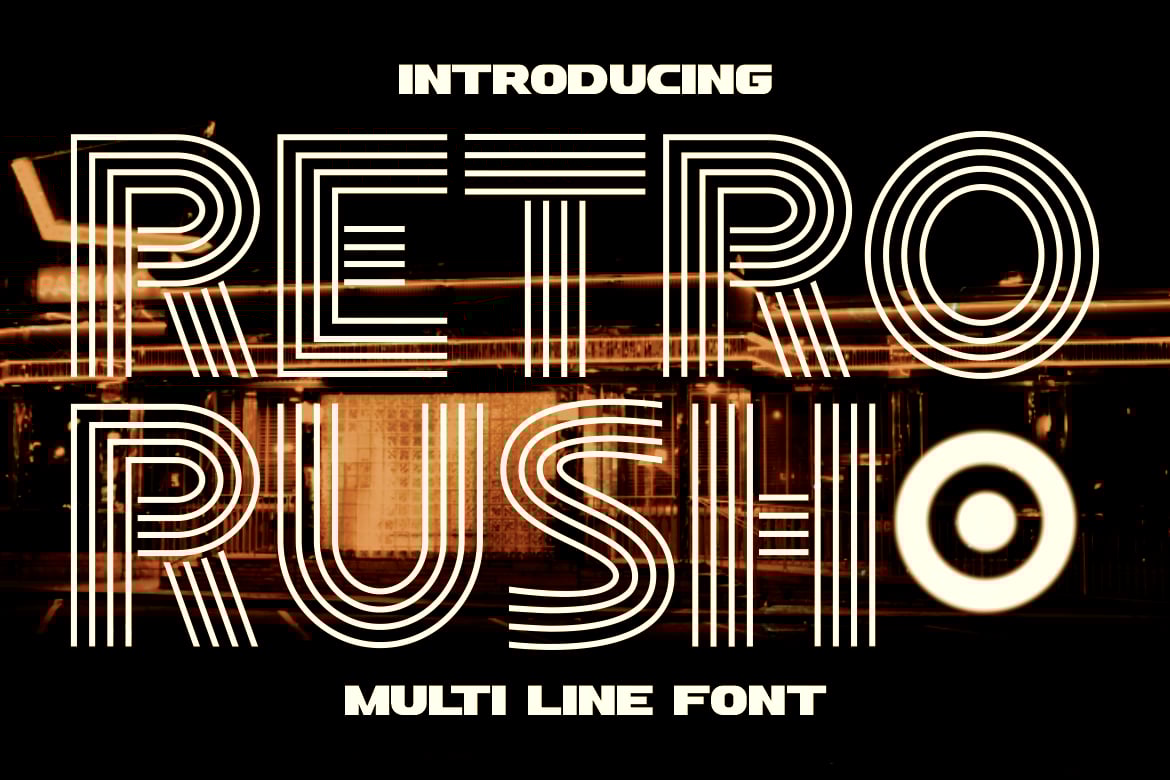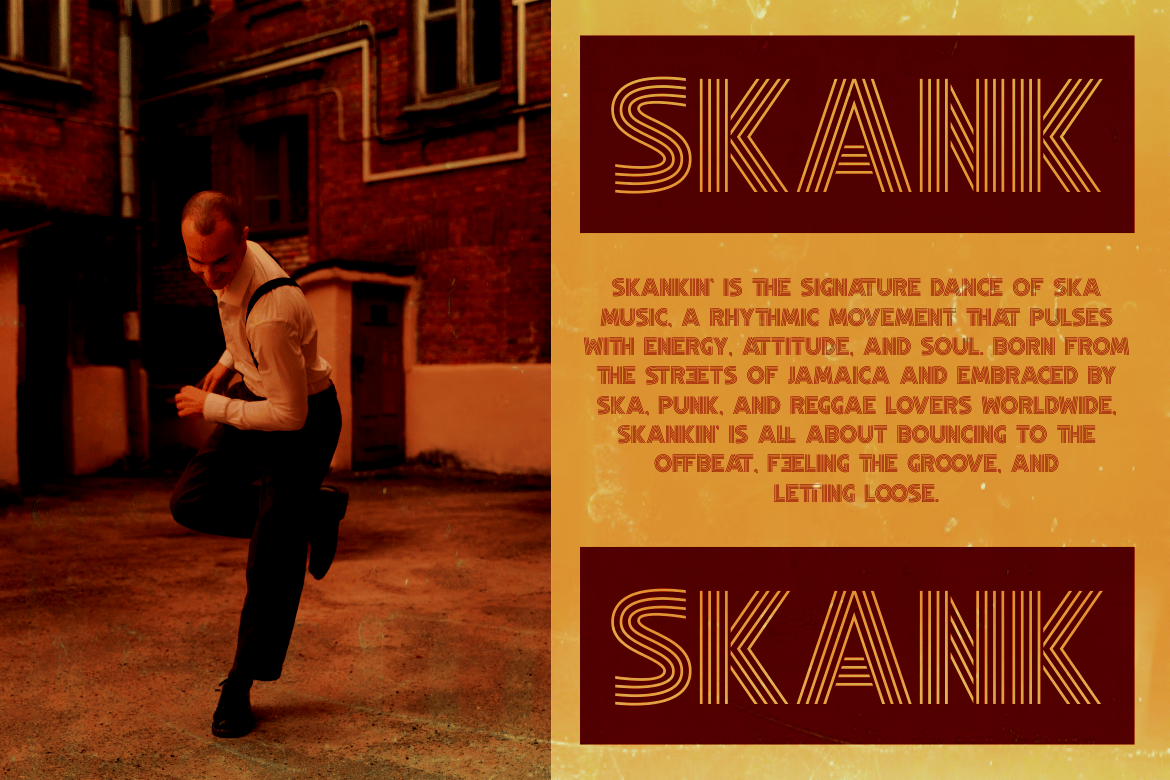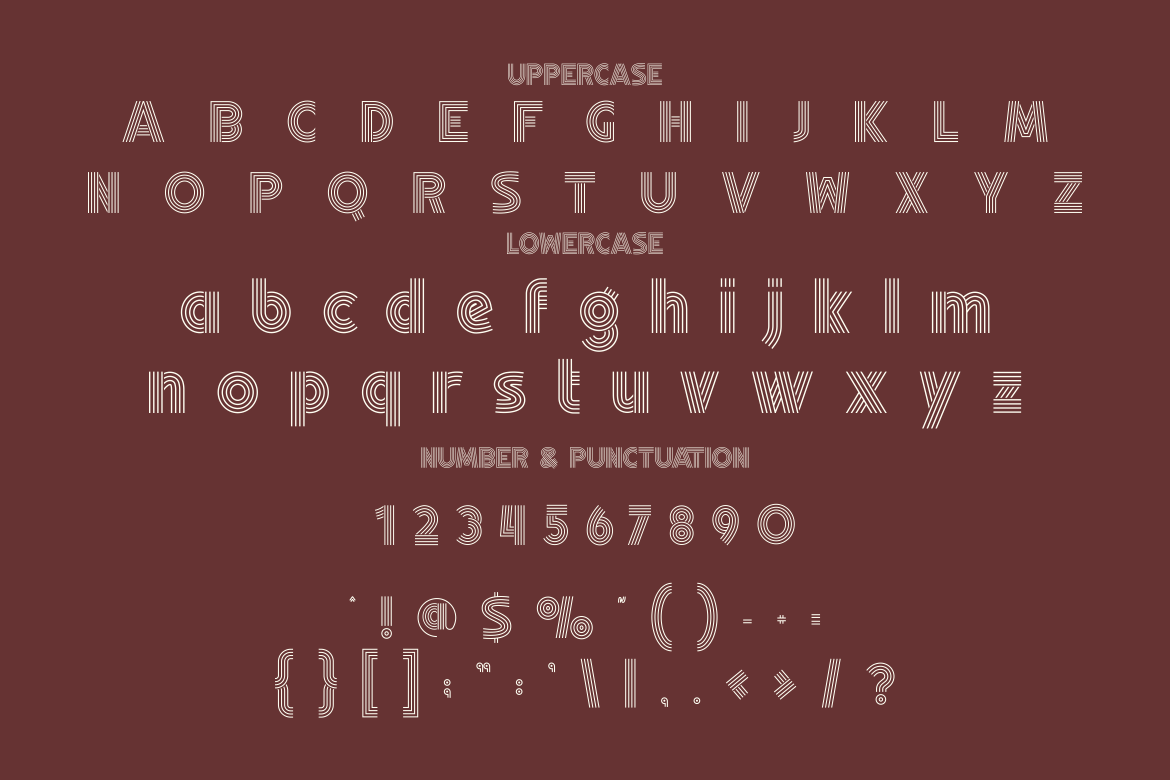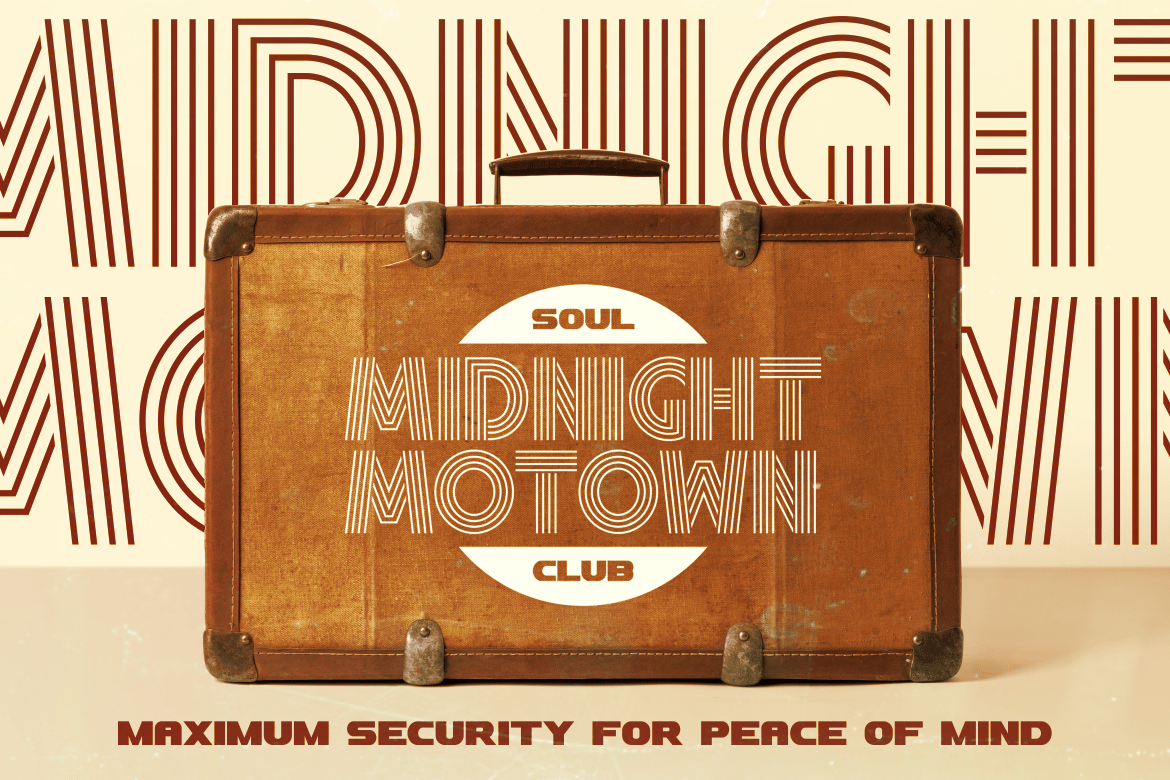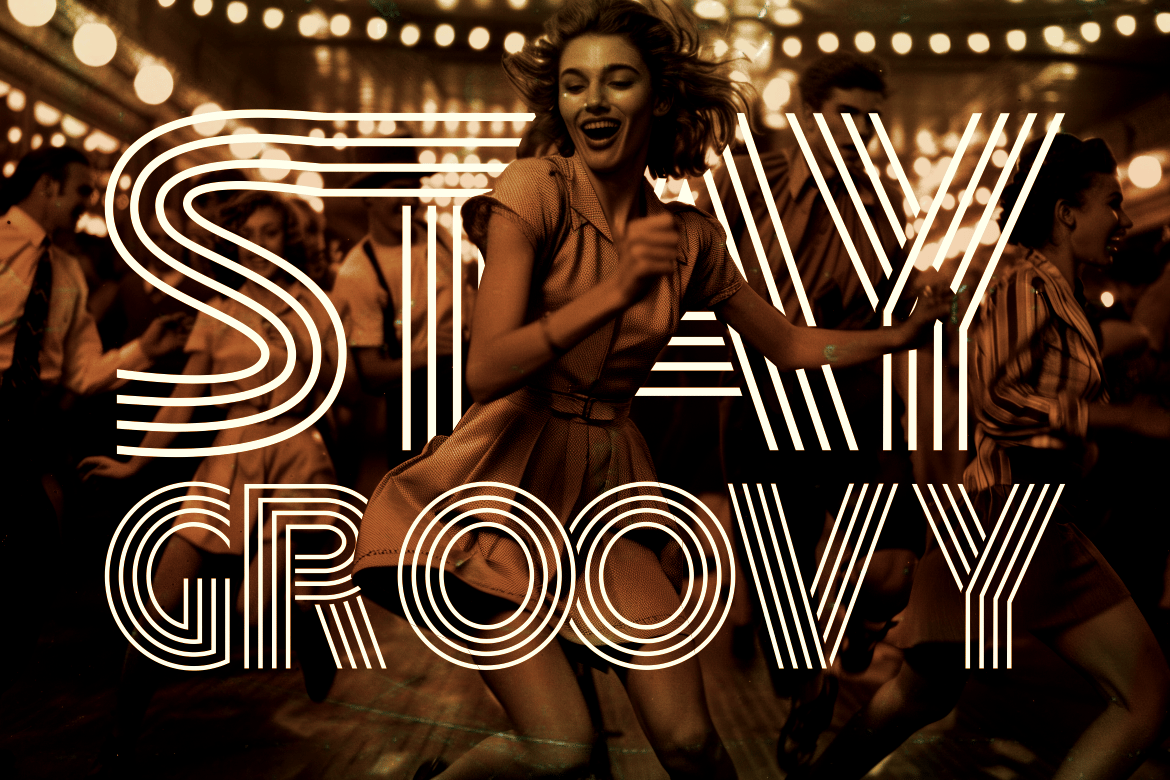
Retro Rush – Retro Font
Introducing Retro Rush – Retro Font, a stunning multi-line typeface that embodies the elegance of art deco and vintage esthetics. This bold and structured display font features a unique line design, creating a sleek and futuristic retro look that is perfect for eye-catching headlines, branding, and creative projects. The symmetrical and geometric letterforms are inspired by 1920s and 1980s typography, combining the sophistication of the deco era with a modern touch. Its clean, font style makes it a versatile choice for both print and digital designs, adding a sense of nostalgia and elegance.
Perfect for logos, packaging, posters, magazine covers, movie titles, invitations, and social media graphics, Retro Rush offers a bold yet sophisticated touch to any project. Whether you’re working on luxury branding, retro-themed advertisements, or stylish editorial layouts, this multi-line display font delivers a timeless aesthetic that stands out in any composition. Its structured yet playful nature makes it ideal for high-impact typography, allowing designers to create stunning visuals with minimal effort. If you’re searching for a stylish, classic, and dynamic font that captures the essence of retro-futurism and vintage elegance, Retro Rush is the perfect choice to elevate your next creative masterpiece.